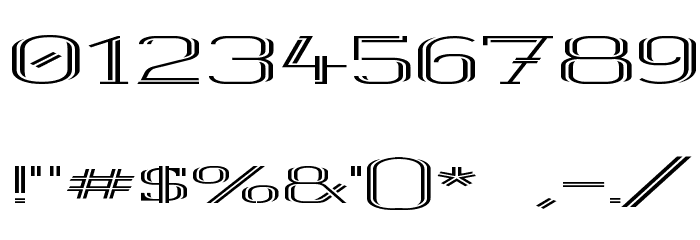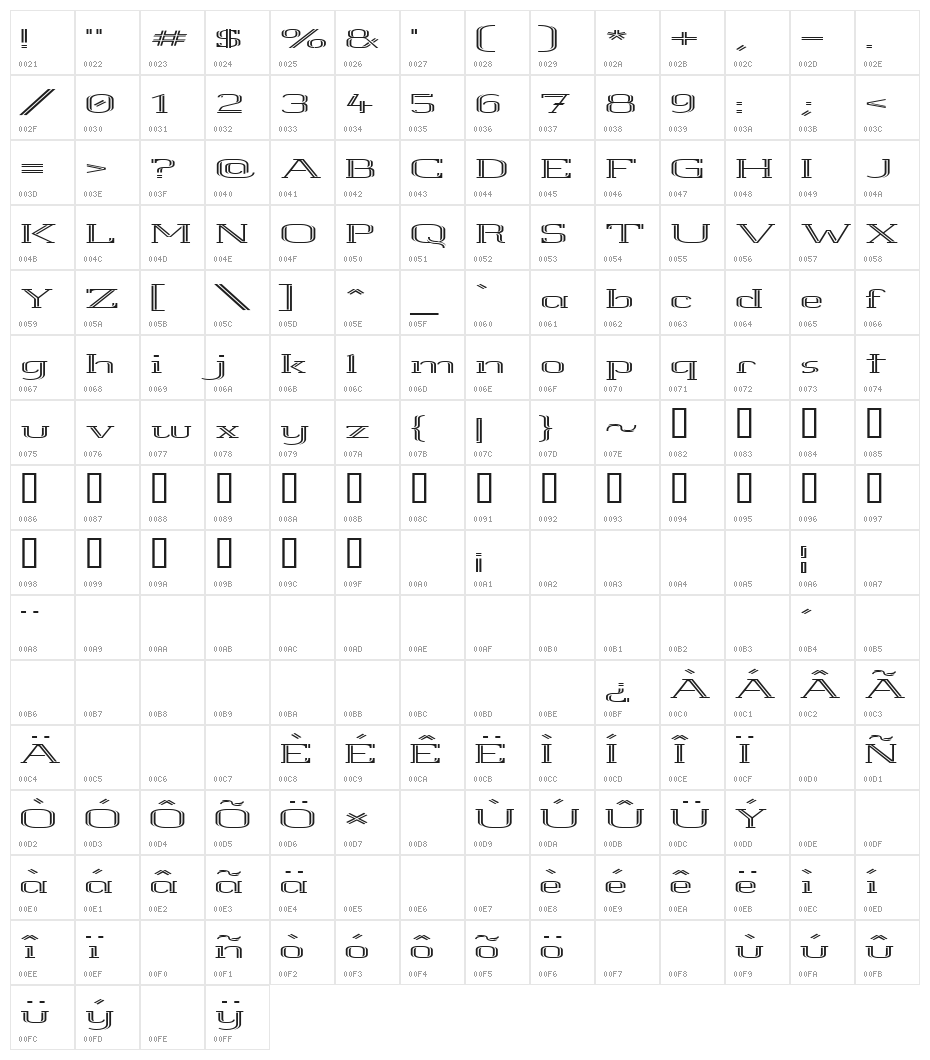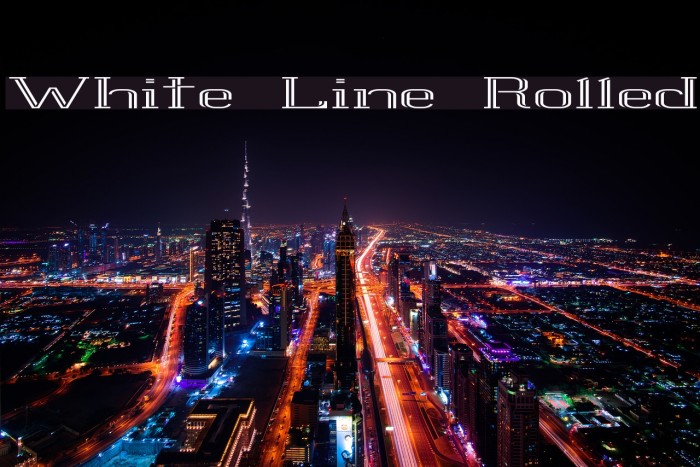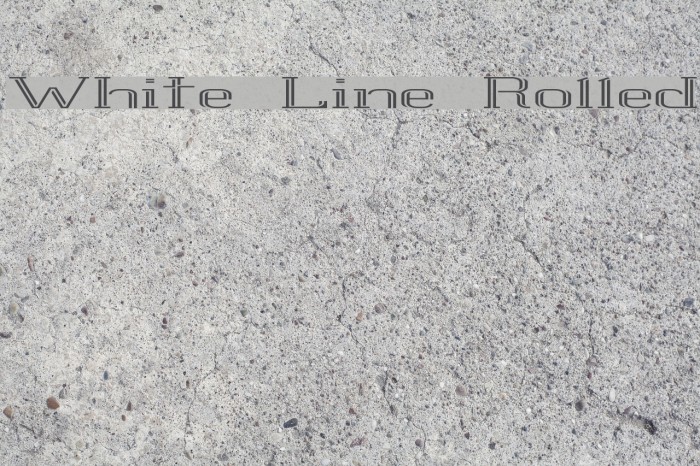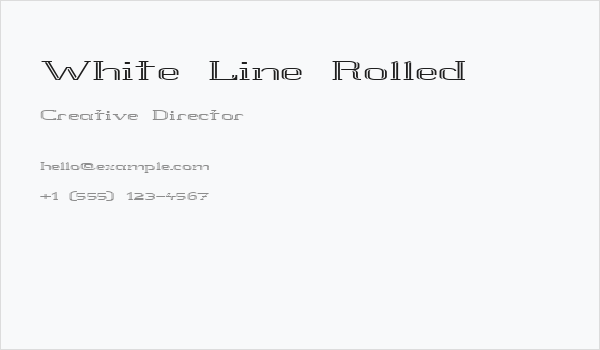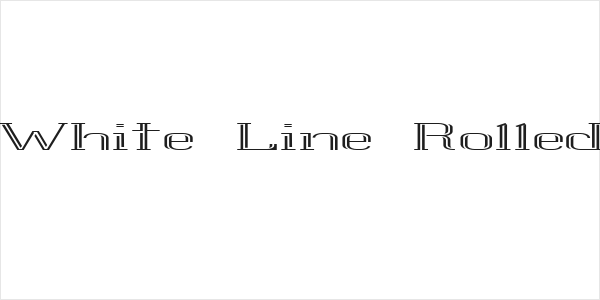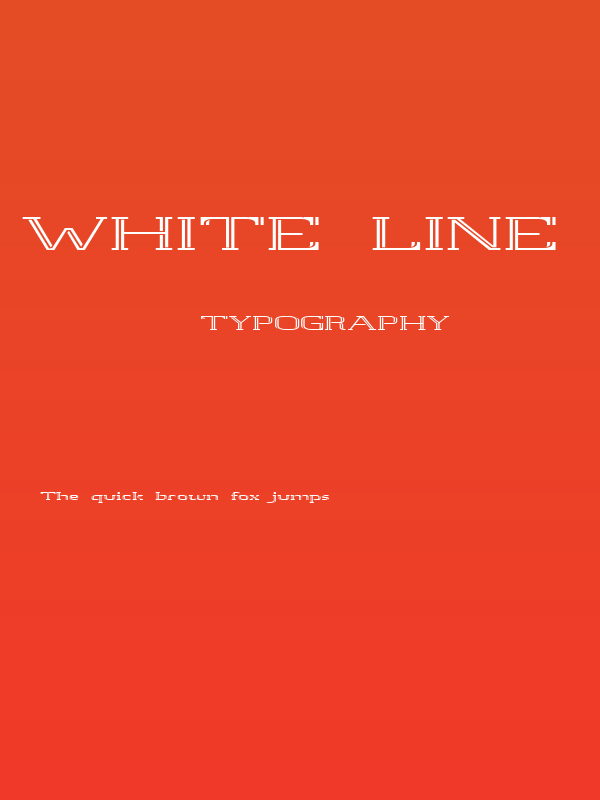
White Line Rolled Font
White Line Rolled Description
This font features a distinct, modern design with a unique outline style that gives it a futuristic and technical appearance. The characters are constructed with a double-line effect, creating a sense of depth and dimension. The uppercase and lowercase letters maintain a consistent geometric structure, while the numerals and special characters follow the same design principles, ensuring uniformity across all glyphs. The font's clean lines and open spaces make it highly legible, even at smaller sizes, while its decorative elements add a touch of sophistication and creativity.
A modern, outline-style font with a futuristic and technical look.
- ( Fonts by Graham Meade - GemFonts FREE )
- Proposed Projects: Ideal for tech branding, futuristic posters, digital interfaces, and creative design projects.